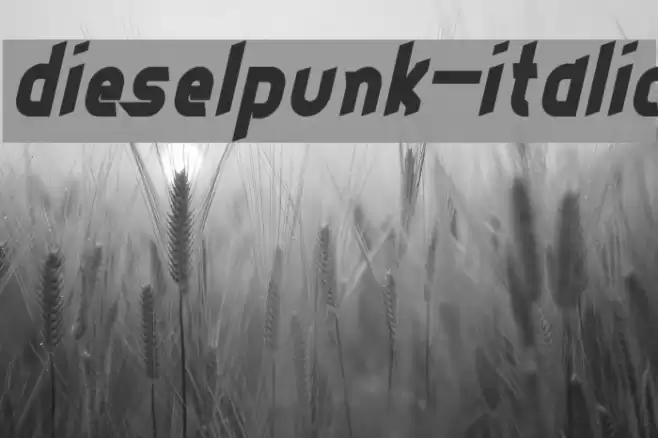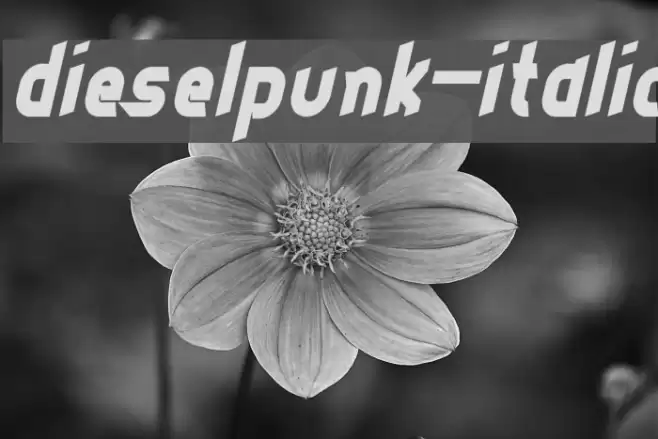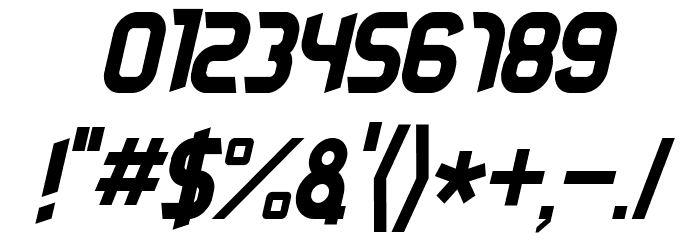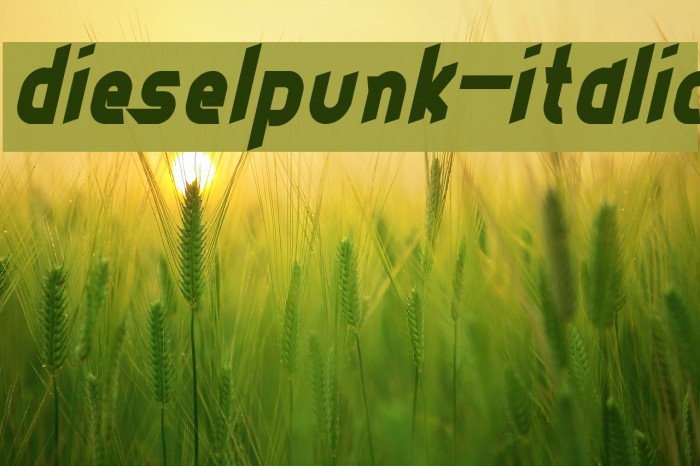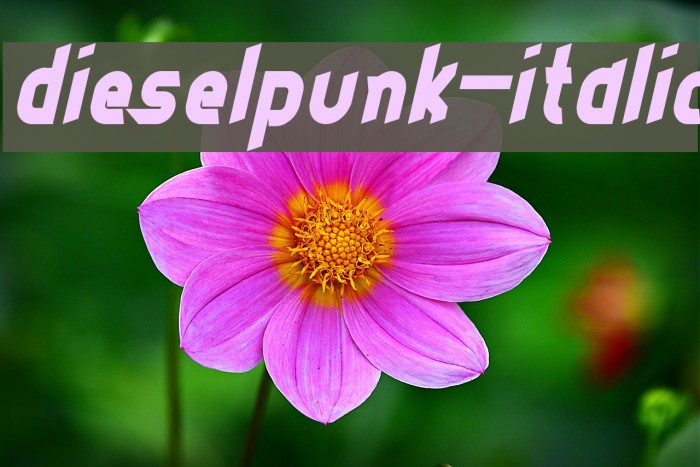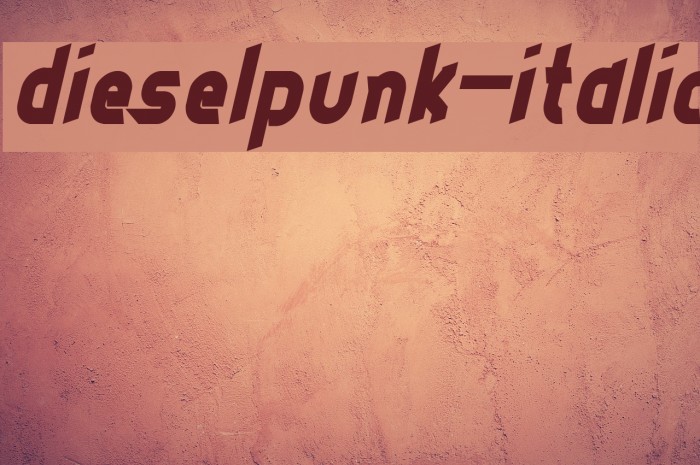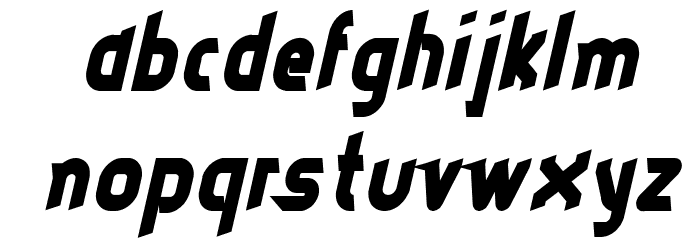
dieselpunk-italic Font
dieselpunk-italic Description
This font features a bold, futuristic design with a distinct italic slant, giving it a dynamic and forward-moving appearance. The characters are angular and geometric, with sharp edges and a strong presence. The uppercase letters are tall and commanding, while the lowercase letters maintain a consistent style with slightly more rounded forms. Numbers and special characters follow the same bold and angular aesthetic, ensuring uniformity across all glyphs. The overall look is reminiscent of industrial and technological themes, making it suitable for projects that require a modern and edgy feel.
A bold, italic, futuristic font with angular, geometric characters from Uncategorized fonts.
- Proposed Projects: Ideal for sci-fi themed designs, technology branding, video game titles, and modern posters.